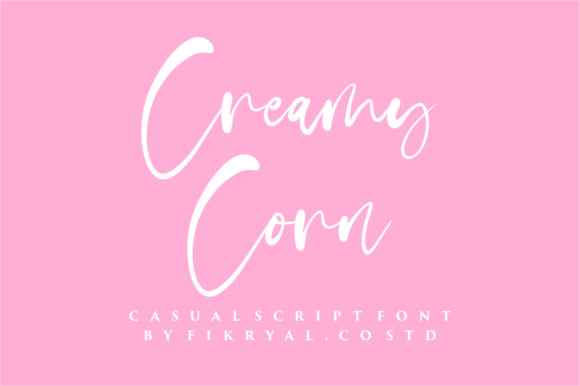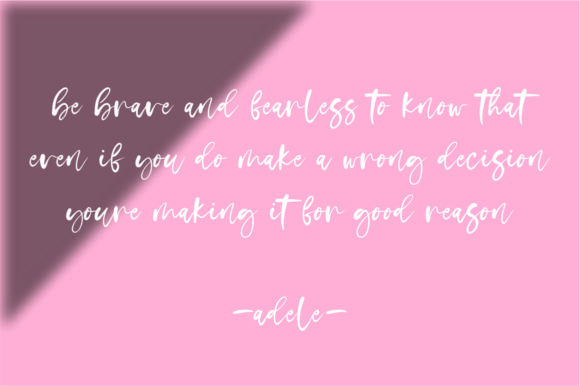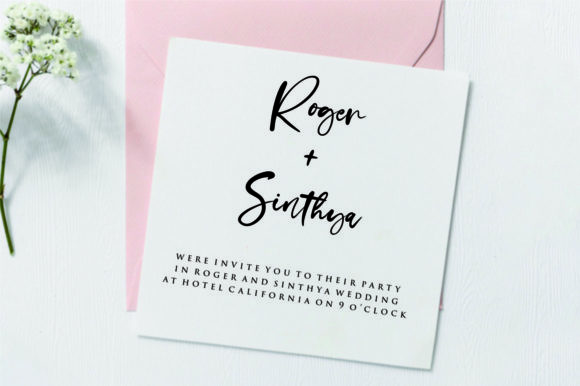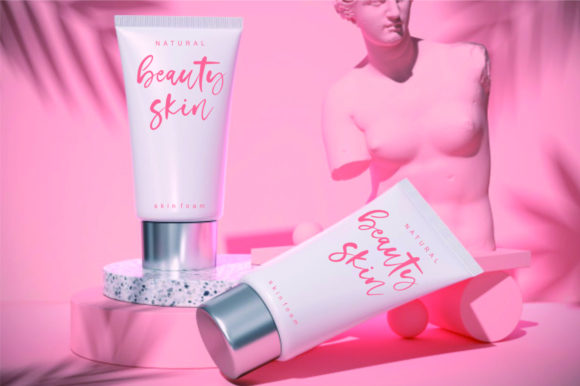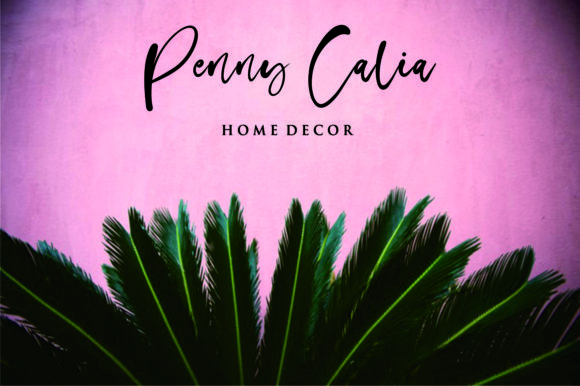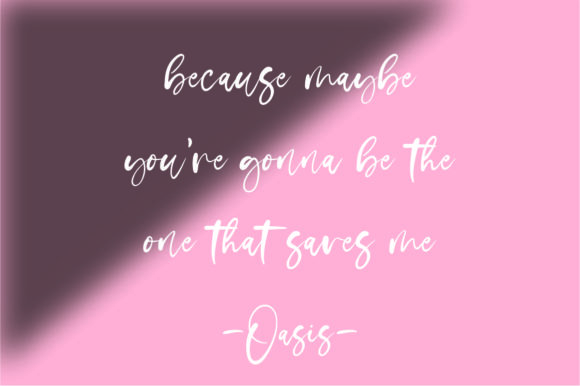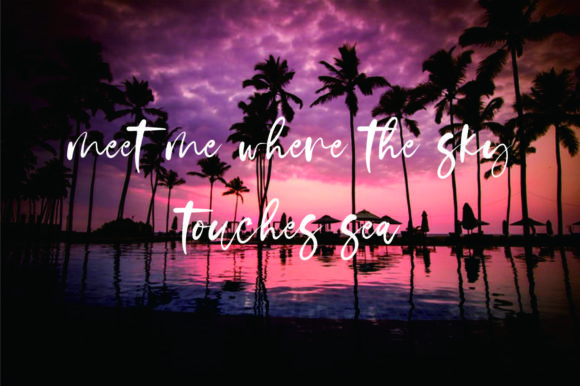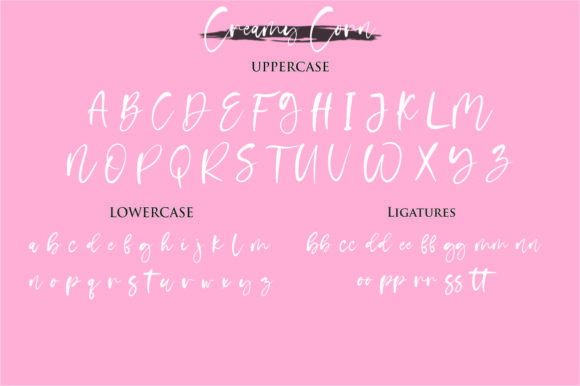
Creamy Corn Font
About Creamy Corn Font
Creamy Corn is a gorgeously made script font that feels breathy and dreamy. It’s perfect for any upcoming spring or summer crafts!